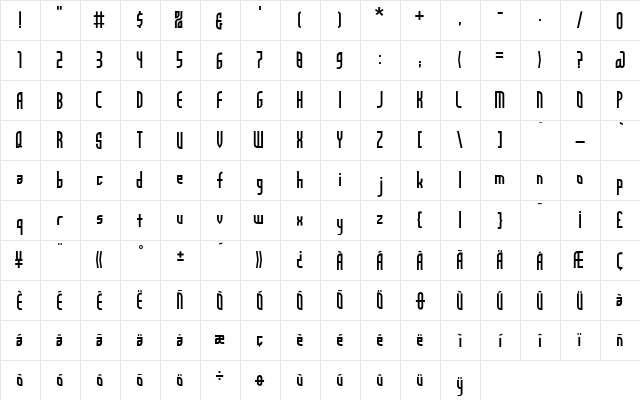
AngelaSans Medium
Design Context for AngelaSans Typeface
AngelaSans takes a measured approach to typography — its balanced proportions and neutral character make it a reliable workhorse for both digital and print work.